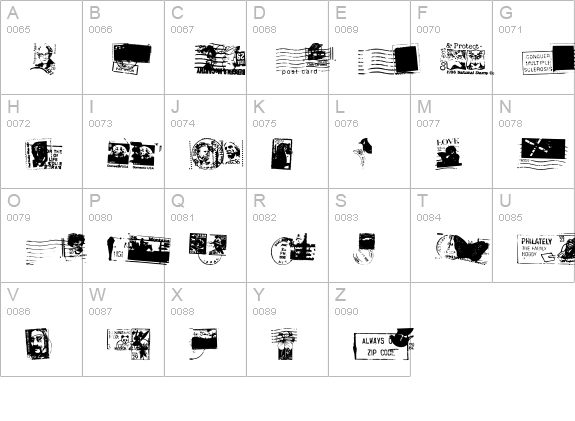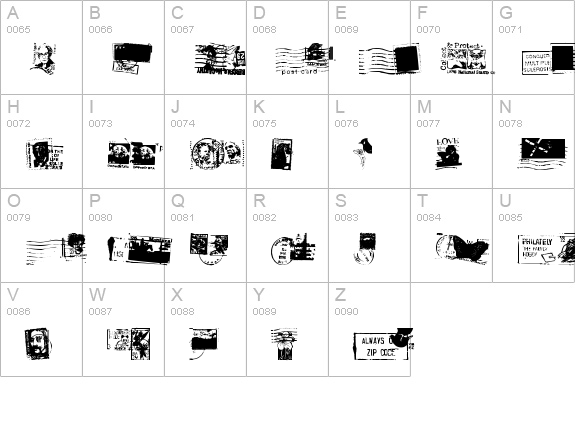
Dead Letter Office Thirty Two font is a unique and versatile typeface that brings a touch of vintage charm to any design project. With its distressed and worn-out appearance, this font exudes character and nostalgia, making it perfect for adding a retro flair to your work. Featuring a wide range of characters and glyphs, Dead Letter Office Thirty Two font is suitable for various design purposes, from branding and packaging to posters and invitations. Its slightly irregular letterforms give it a handcrafted feel, adding a touch of authenticity to your designs. Best of all, Dead Letter Office Thirty Two font is available for free download at FontsMarket.com. This means you can easily access and use this eye-catching typeface in your projects without breaking the bank. So why wait? Add a touch of vintage flair to your designs today with Dead Letter Office Thirty Two font.